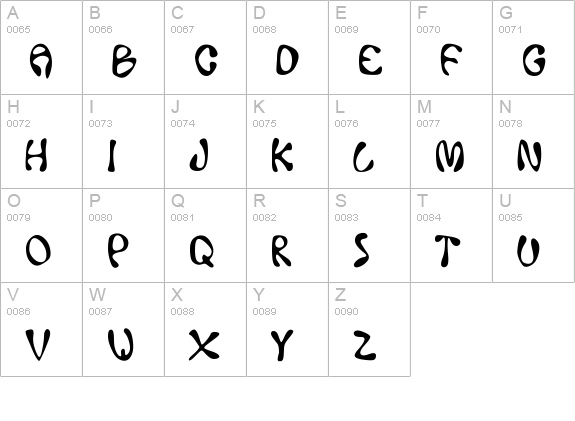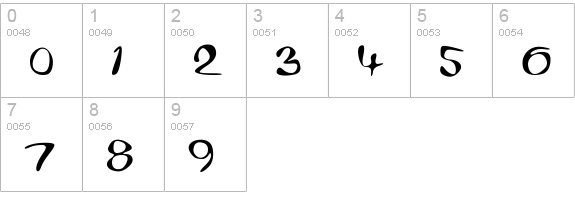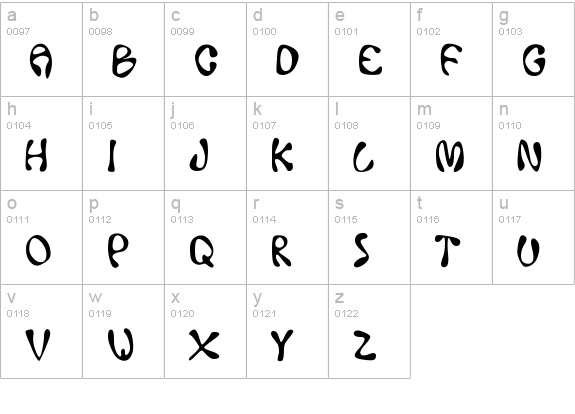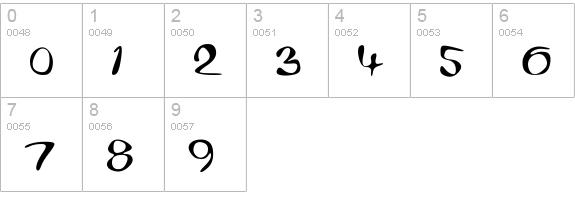
Ace Crikey font is a bold and eye-catching typeface that exudes confidence and creativity. Its unique design features sharp edges and dynamic curves, making it perfect for headlines, logos, and other attention-grabbing design projects. This versatile font can be used in a variety of styles, from modern and edgy to classic and sophisticated. The best part about Ace Crikey font is that it is completely free to download at FontsMarket.com. Whether you're a professional designer looking to add a fresh new font to your collection or a hobbyist creating fun projects for personal use, Ace Crikey font is a fantastic choice. Don't miss out on the opportunity to enhance your designs with this striking and stylish typeface - download Ace Crikey today and let your creativity soar!